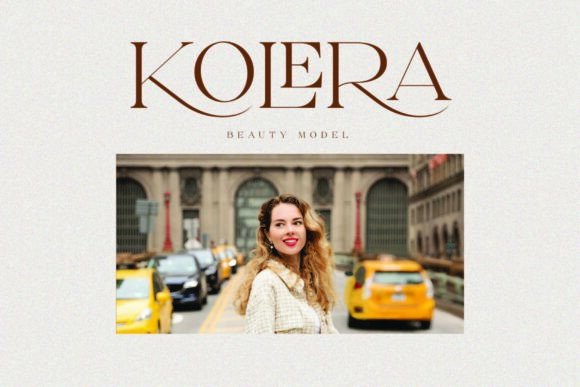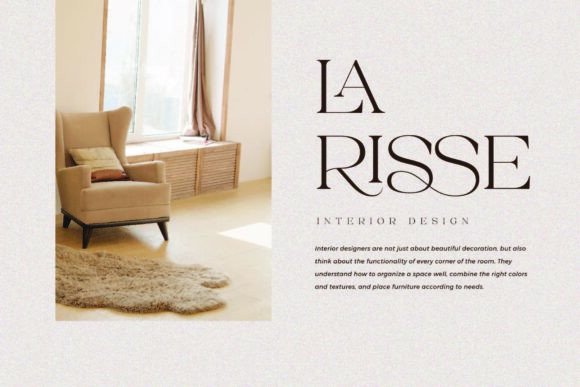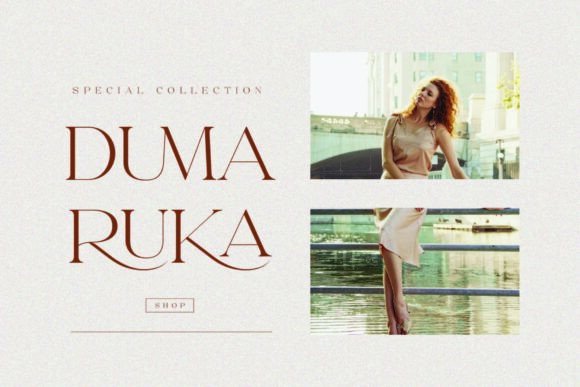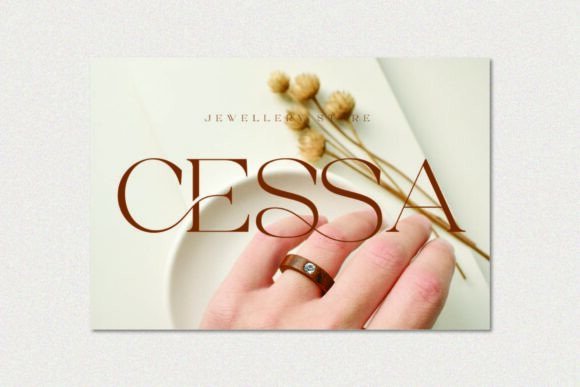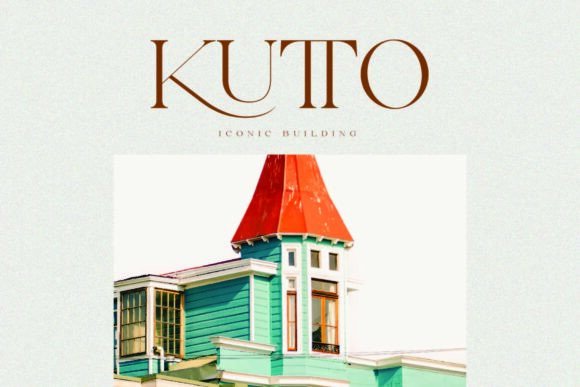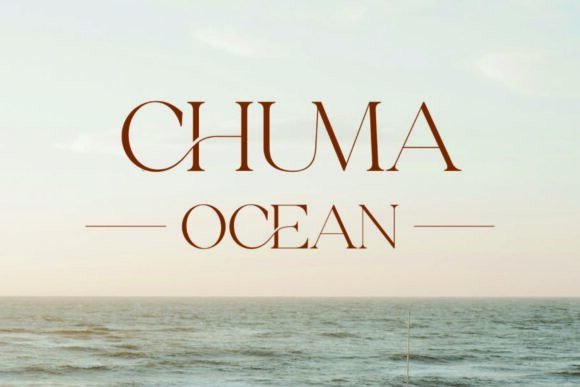
Introduction to Rossce Font
As a designer, have you ever been stuck in front of a blank canvas, struggling to find the perfect font to bring your creative project to life? We’ve all been there – hours of scrolling through design resources, searching for that elusive combination of style and functionality. But what if I told you there’s a font that can simplify your workflow and elevate your designs to the next level? Enter Rossce Font, a stunning ligature typeface inspired by the minimalist masterpieces of the design world.
With its sleek, modern aesthetic and transparent background, Rossce Font is the perfect addition to any design arsenal. Whether you’re creating templates, brochures, or logos, this high-quality font is sure to impress. And the best part? It’s available for free download, making it an invaluable resource for designers of all levels.
Key Features of Rossce Font
- High-quality, professional font ideal for creative projects, including logos, branding, and advertising materials.
- Unique, elegant design with a modern aesthetic, perfect for adding a touch of sophistication to any visual content.
- Supports a wide range of languages, including Latin, Cyrillic, and Greek alphabets, making it a versatile design resource.
Honest Review: Rossce Font
I recently came across the Rossce Font while searching for a design resource for a creative project. The font has a unique aesthetic that caught my attention, and I decided to give it a try.
Here are some of the things that work well: ✨
- High-quality design: The Rossce Font is well-crafted, with smooth lines and a consistent style.
- Transparent background: This feature is perfect for designers who want to use the font over a variety of backgrounds.
However, there are some limitations to consider: ⚠️
- Limited character set: The font only includes a limited set of characters, which may not be suitable for complex projects.
- Not ideal for small text: The font may not be the best choice for small text, as it can be difficult to read.
Overall, the Rossce Font is a solid choice for designers who need a unique and high-quality font for a creative project. While it has some limitations, it’s definitely worth considering for designers who want a free and versatile font.
To get the most out of Rossce Font, be sure to use it on a transparent background to ensure that it blends seamlessly with your design. You can also use the font in combination with other design elements to create a unique and eye-catching visual effect.
Some common use cases for Rossce Font include creating social media graphics, designing business cards, and developing branding materials. With its high-quality design and versatility, Rossce Font is a valuable resource for any creative project.